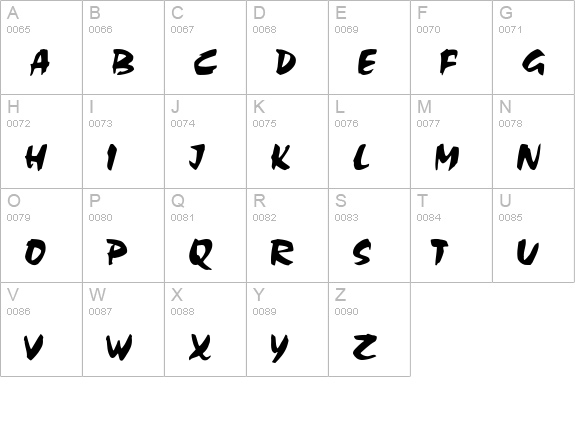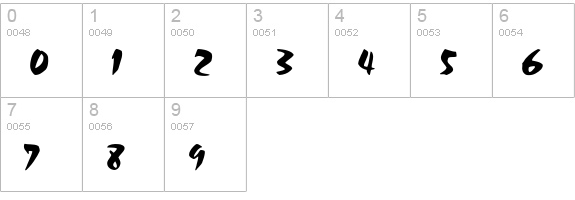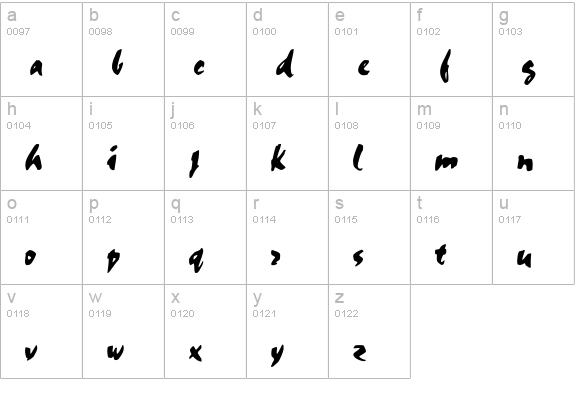
CSD-Chalk-Norma Font Details
CSD-Chalk-Norma is a charming and whimsical font that exudes a sense of playfulness and creativity. Its unique hand-drawn style gives any project a touch of warmth and personality. This font is perfect for adding a fun and casual vibe to designs such as invitations, posters, and social media graphics. What makes CSD-Chalk-Norma even more appealing is that it is completely free to download at FontsMarket.com. This means that you can easily access this delightful font without any cost, making it a fantastic choice for both personal and commercial projects. Embrace the cheerful and lively energy of CSD-Chalk-Norma in your designs and watch them come to life with its distinct character and charm.